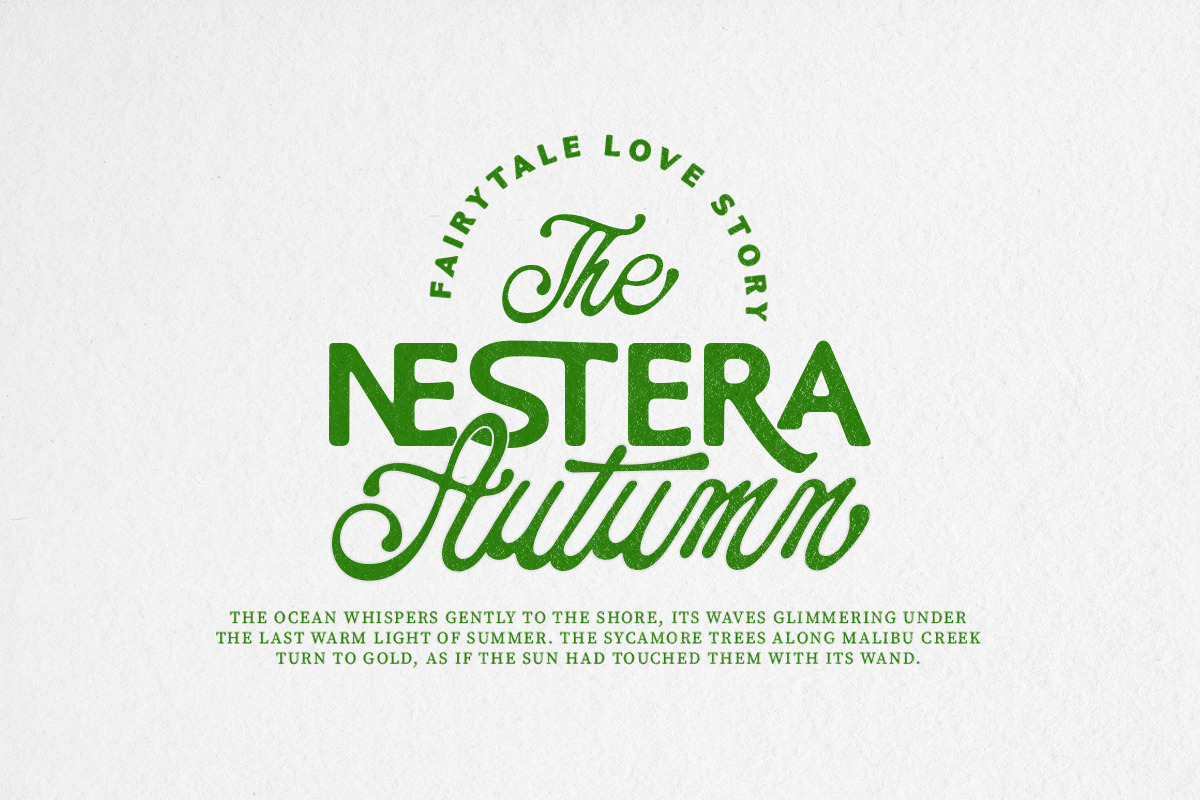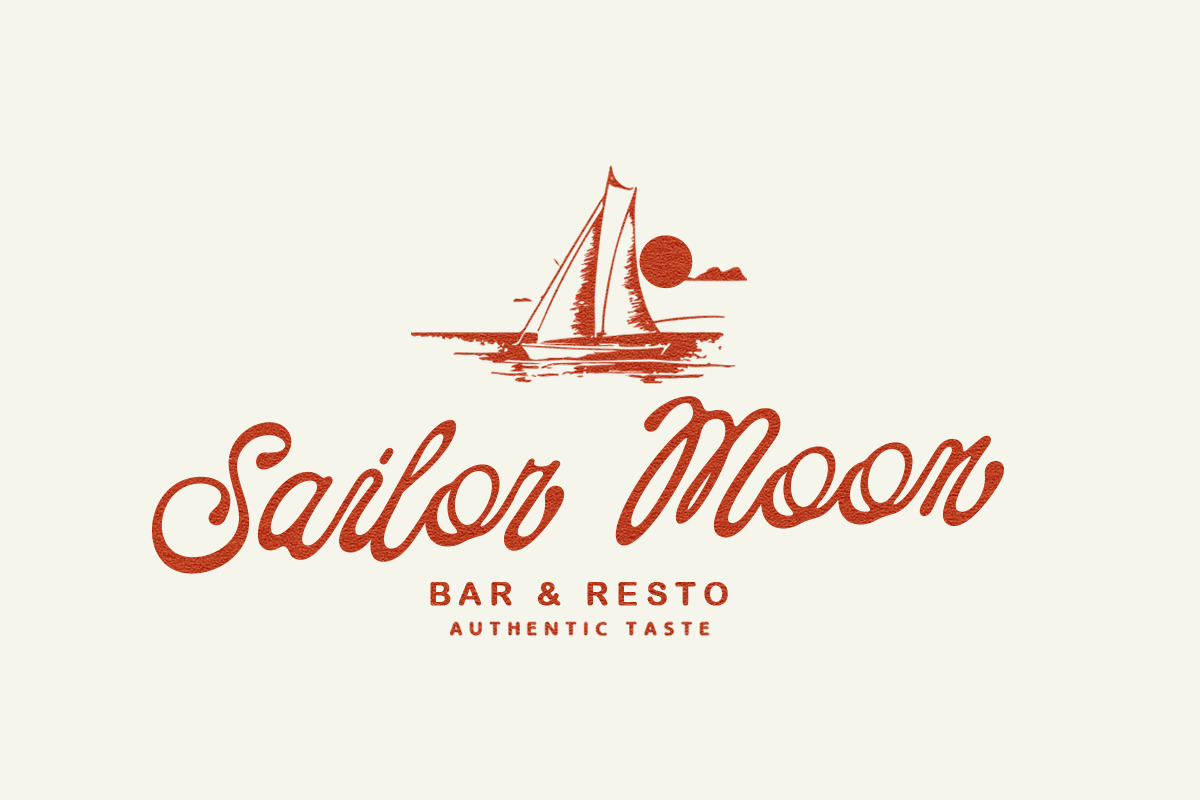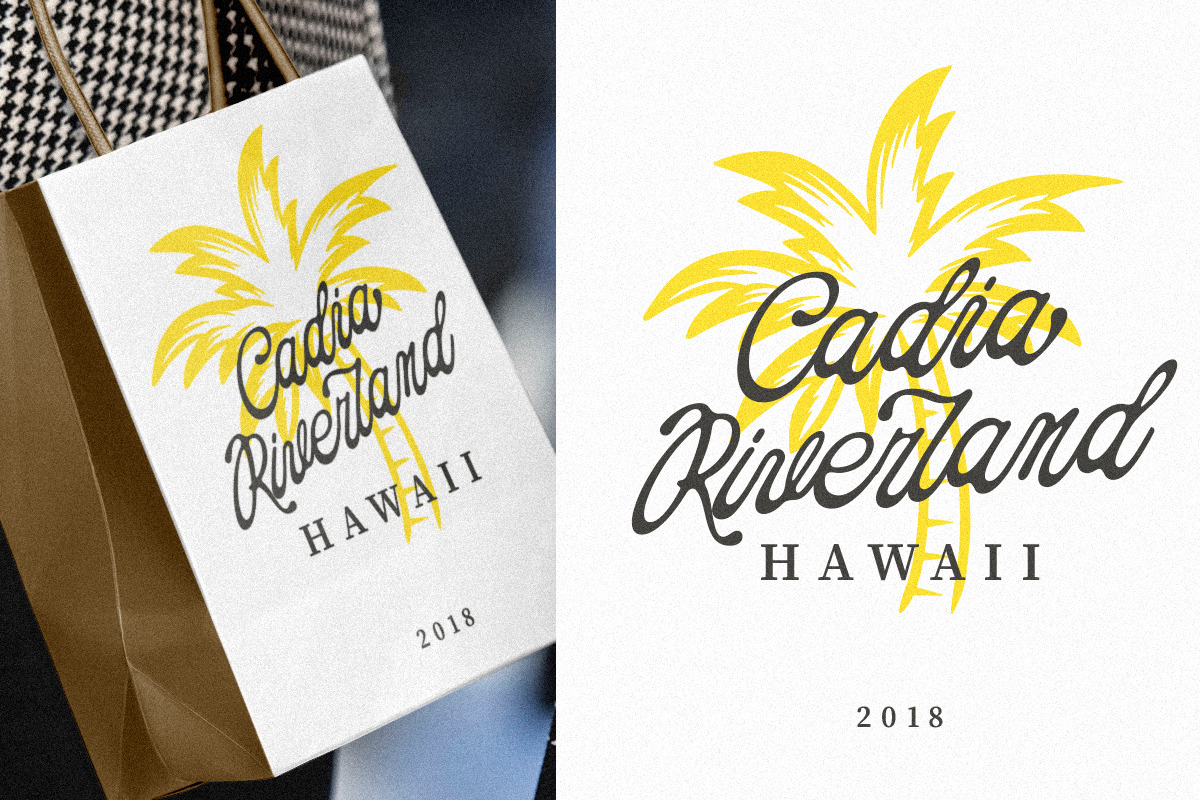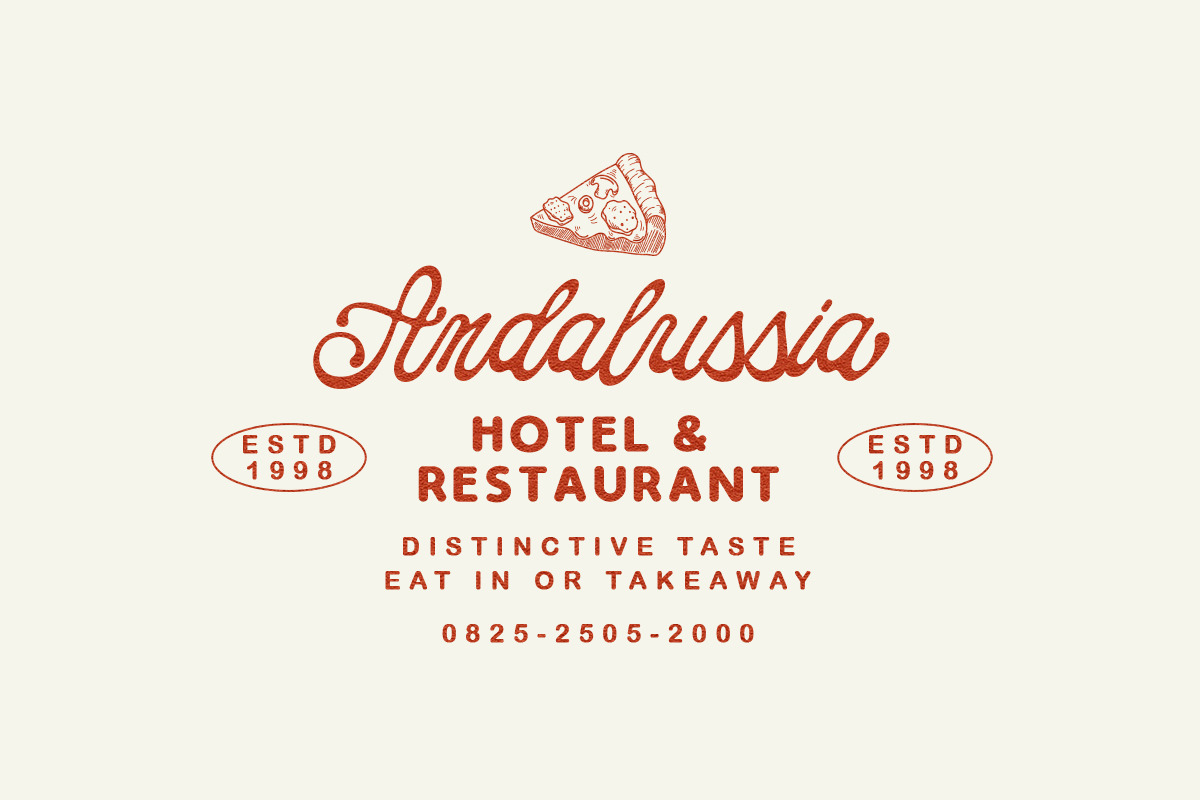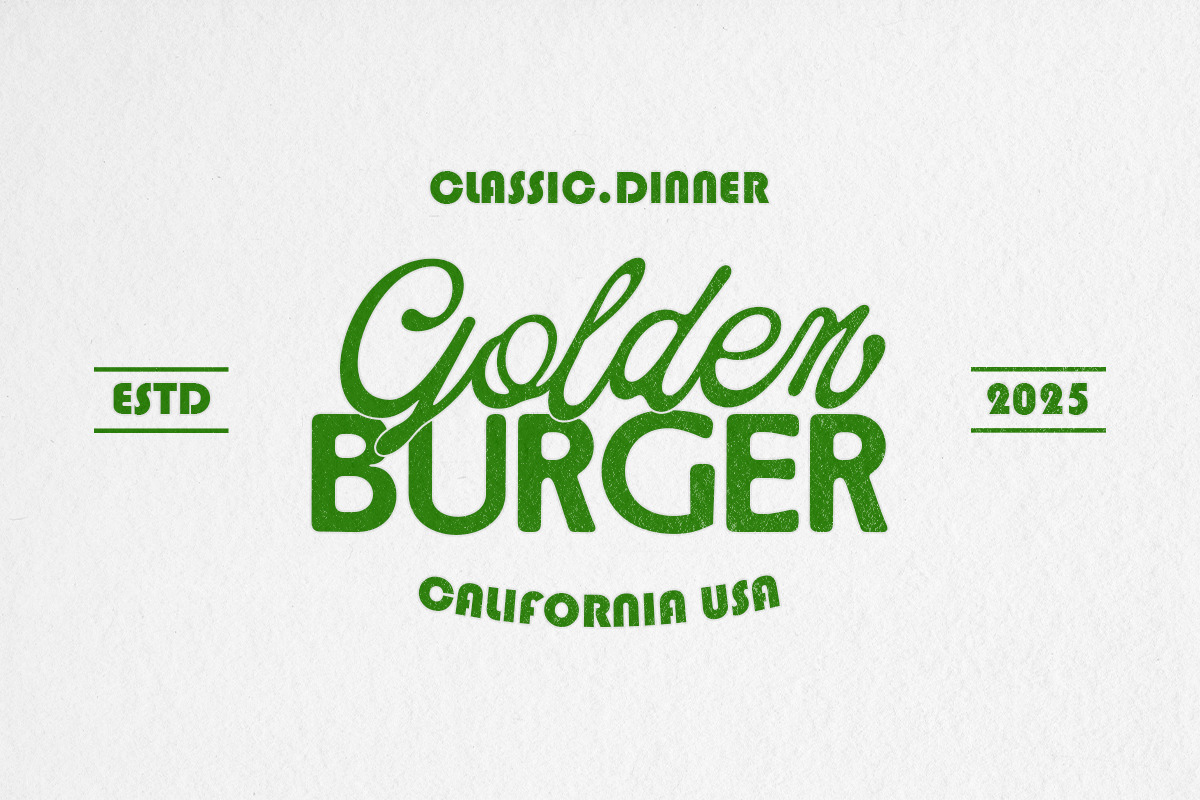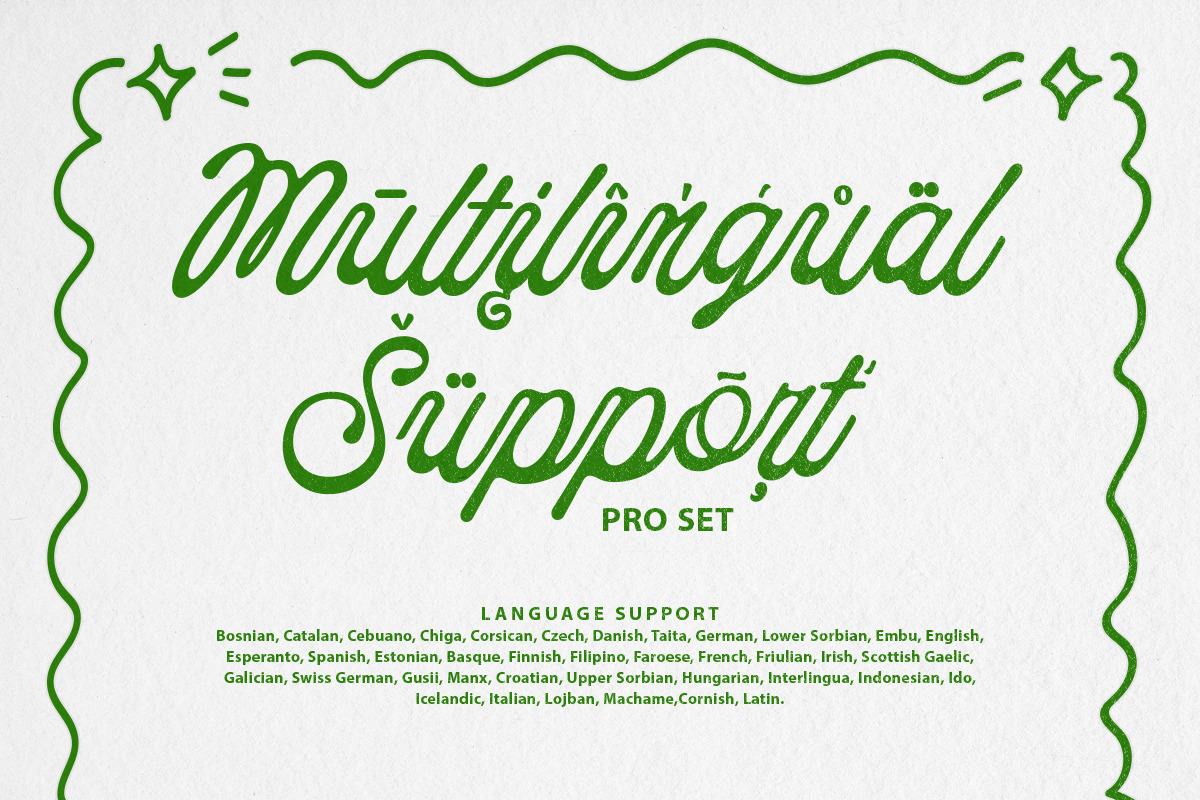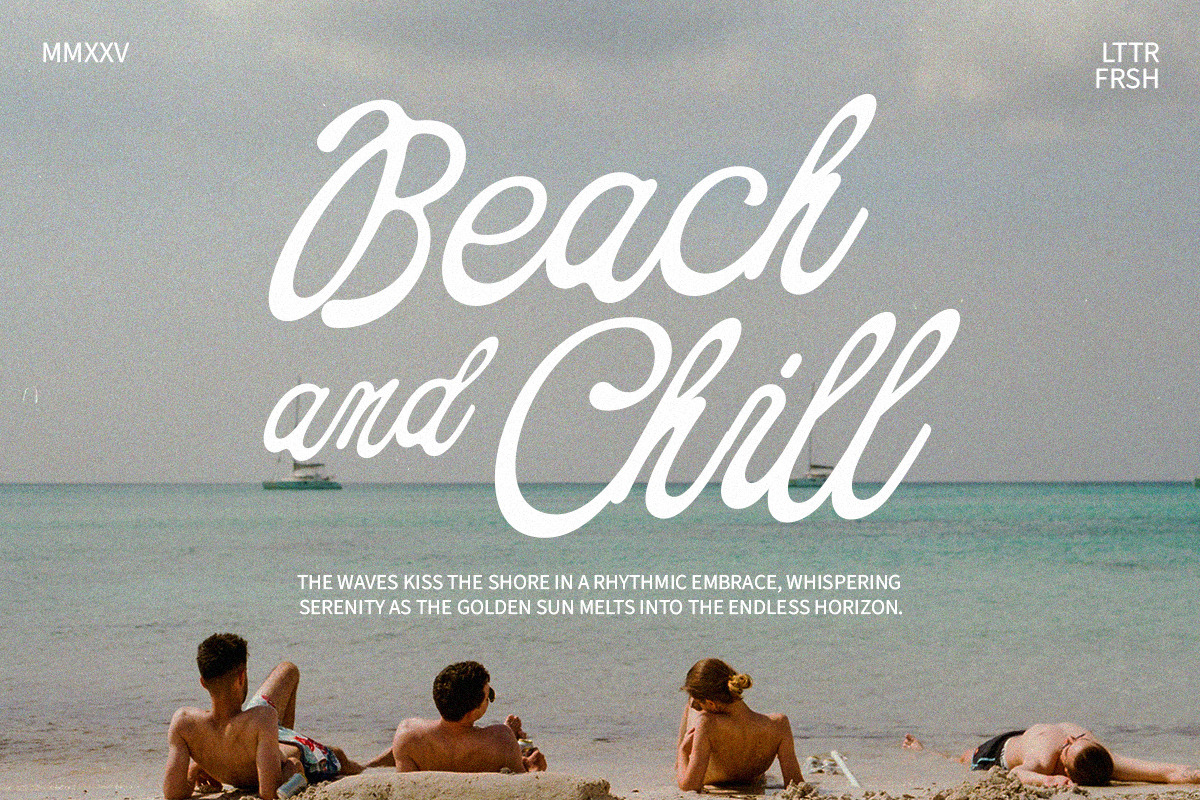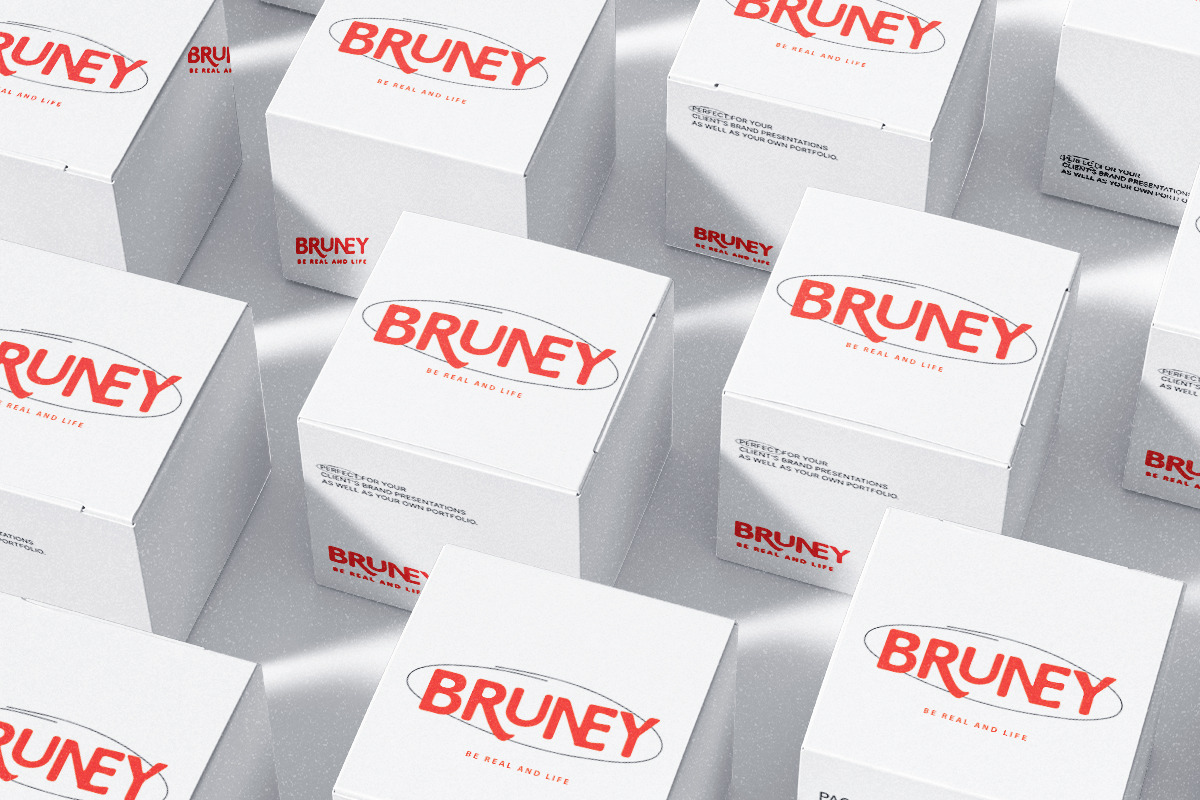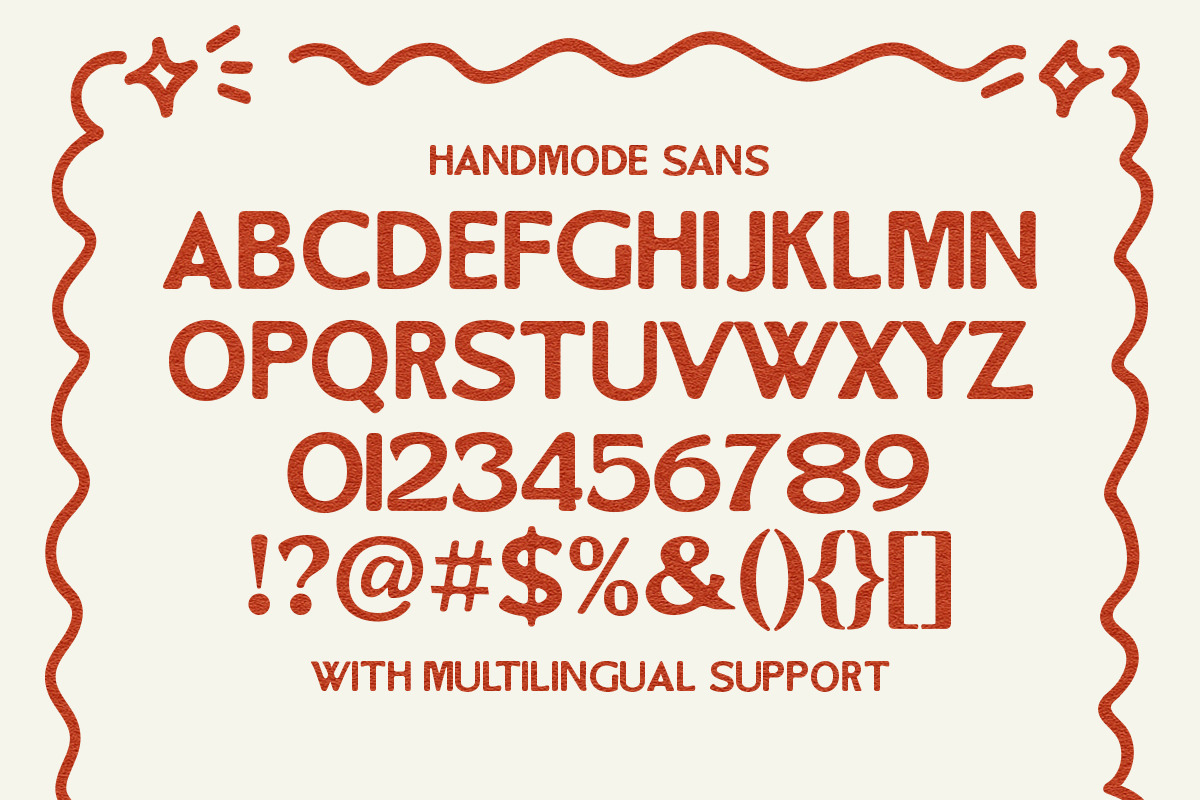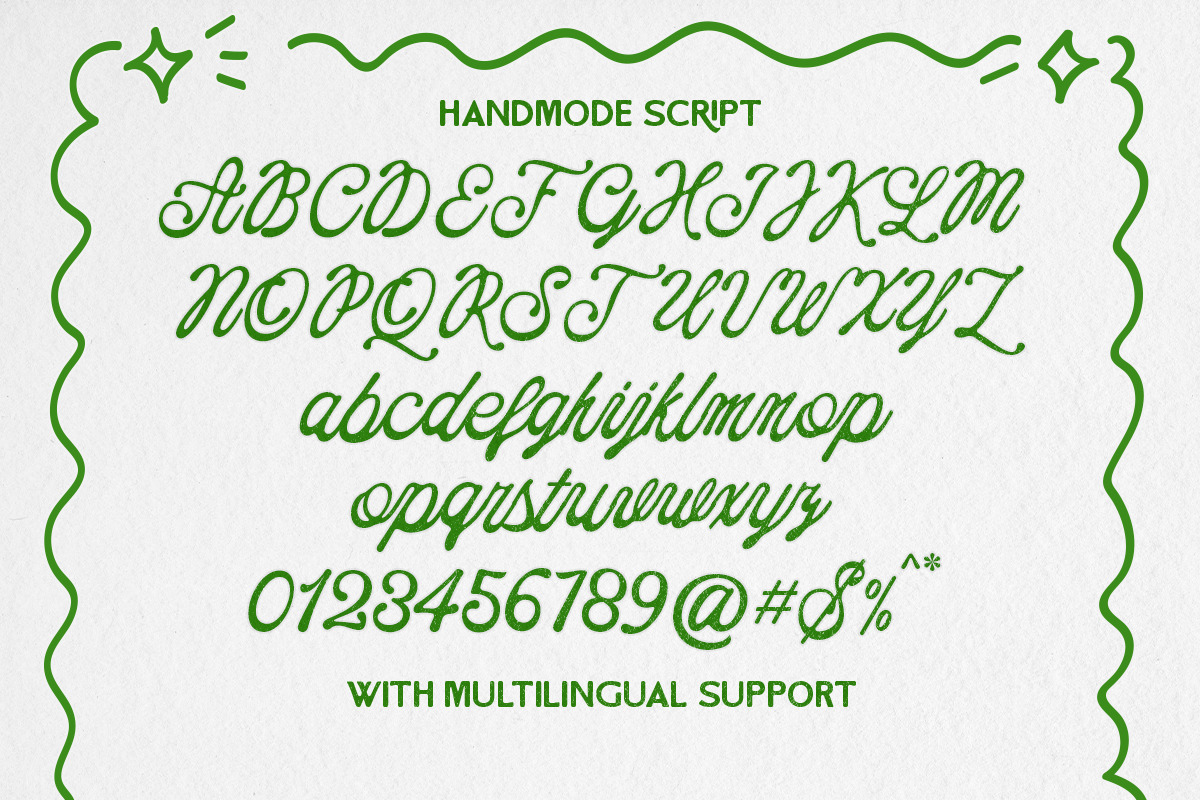
Handmode Editorial Duo
Handmode Editorial, a sweet and gentle font duo! With a bold, rounded sans font and a flowing handwritten script, this playful combination strikes the right balance between bold and friendly. Perfect for product labels, greeting cards, social media posts, branding projects, logo designs, packaging, quotes, and more.